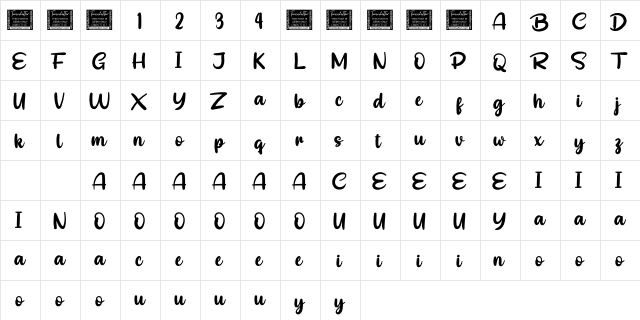
High Beginning Personal Use
Design Context for High Beginning Typeface
High Beginning is a composed and adaptable typeface that performs quietly and consistently across a wide range of design contexts.
Pro Tip: Pair High Beginning with a font of contrasting weight or personality to build a more expressive typographic hierarchy.